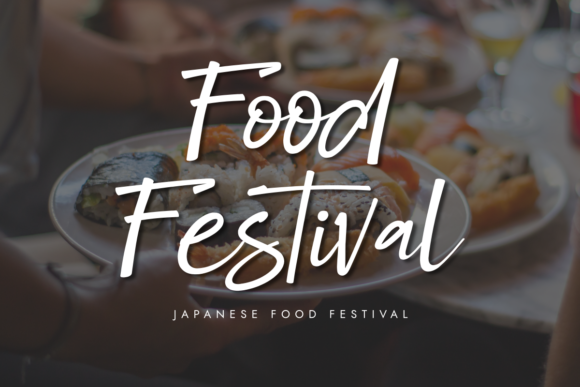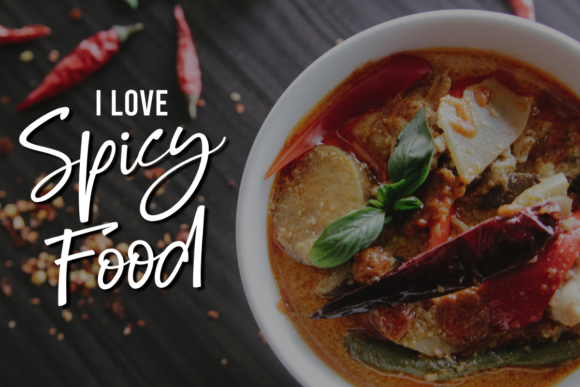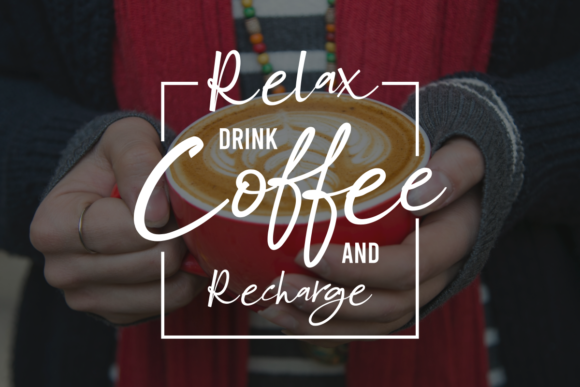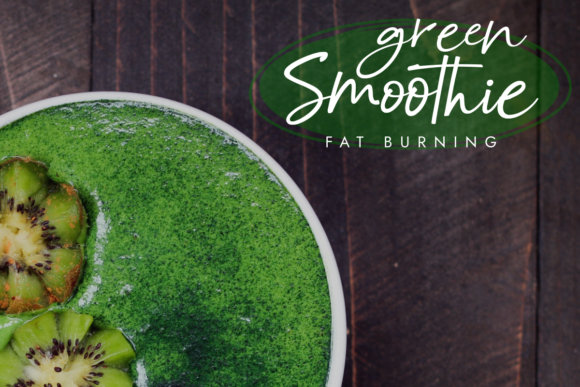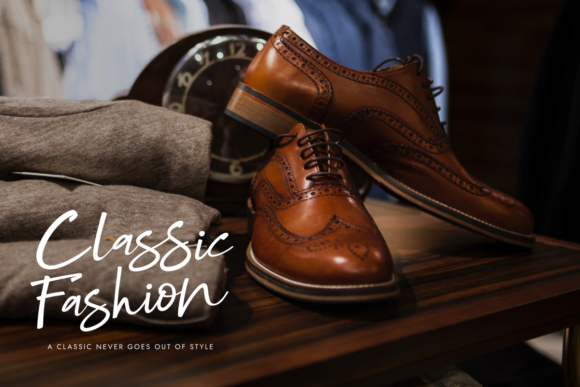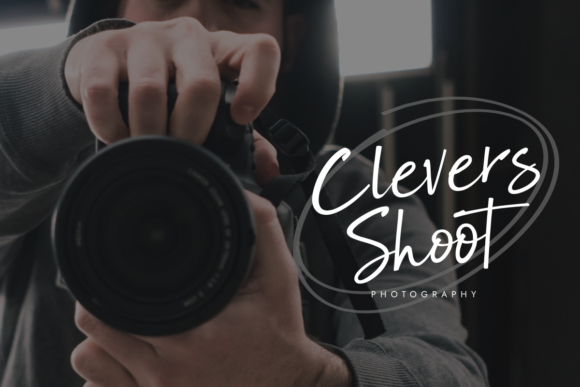
Introduction to Playback Font
Playback is a stunning script that features rich curves.
Get inspired by its bold and charming look .
Key Features of Playback Font